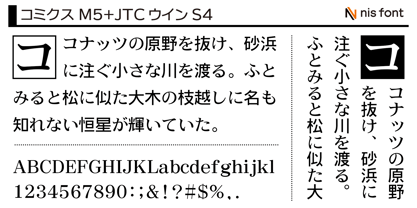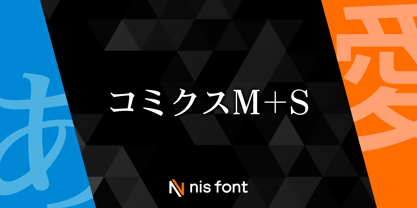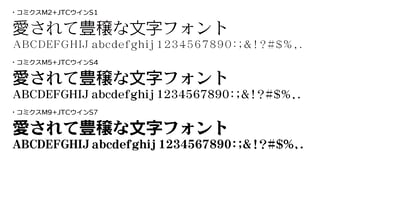
OT-NIS_CMS
by NIS Fonts
This typeface is designed for use in manga speech bubbles (name captions). It features a unique composition commonly seen in manga, with kana characters in Mincho style and kanji in square sans-serif style. Special punctuation marks tailored for manga are also included. It is also ideal for use in digital manga for e-books. There are three weight variations in total, including this product. In JIS Level 1 Block 07, specialized symbols have been added in place of Russian characters. Note: This typeface supports the JIS2004 character set.